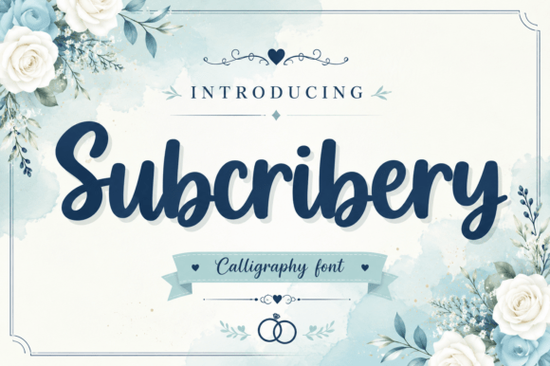
If you are looking for a handwritten style that stays readable even at smaller sizes, the Subscribery Font is a practical choice for your next project. It offers a relaxed, brush-style look that feels personal without sacrificing clarity. Whether you are designing a quick YouTube thumbnail or putting together merchandise for your small business, having a versatile script in your library saves time and keeps your branding consistent.
What makes this brush script stand out for everyday use?
The main advantage of this typeface is its balance between a casual, laid-back feel and strict legibility. Many brush scripts look great in large headings but turn into a messy scribble when scaled down. This font avoids that problem by using bold, fluid strokes that connect seamlessly. The letterforms are carefully spaced, which means you spend less time manually adjusting kerning and more time actually designing.
When you are comparing options for your digital assets, checking out the Sederhana script can give you a good idea of how different styles handle spacing and flow. However, if your primary goal is to grab attention on crowded social media feeds, the thick strokes of this specific design ensure your text pops off the screen without needing heavy drop shadows.
Where does this font work best for creators and sellers?
Because of its friendly aura, it is highly effective for platforms where personality matters. Print-on-demand sellers and digital artisans use it across a wide variety of products. Here are a few practical applications:
- YouTube Thumbnails: The bold outlines make it easy to read on mobile devices, even when the image is shrunk down.
- Merchandise: It prints beautifully on t-shirts, mugs, and notebooks, giving mass-produced items a custom, handmade feel.
- Packaging: Adds a personal touch to quirky product labels, thank you cards, and shipping tags.
- Logotypes: Works well for lifestyle, beauty, or craft-based brand identities that want to appear approachable.
When designing merchandise or packaging, pairing a heavy script with a clean secondary font is key. You could mix it with something like the Simple Handwriting text for your body copy to keep the overall layout balanced and easy to read.
How does it compare to other popular handwritten options?
Every script has its own personality, and choosing the right one depends on your brand's specific voice. While this design leans into a modern, casual vibe, other scripts might serve different niches better.
If you need something a bit more rustic or vintage for a farmhouse-style brand, the Americana Preserves lettering offers a charming, old-world feel. On the other hand, if you are creating content for a bakery, a wedding invitation, or a sweet lifestyle blog, the Wild Honey brush brings a playful, sugary energy to your layouts.